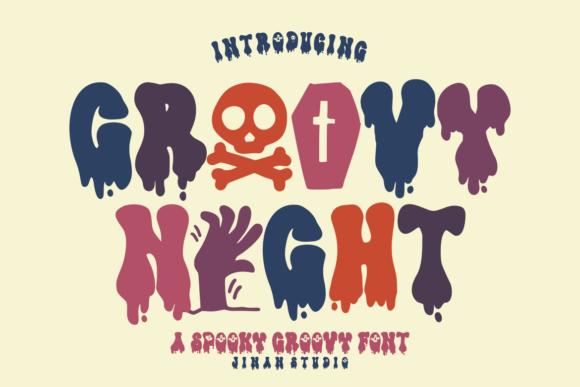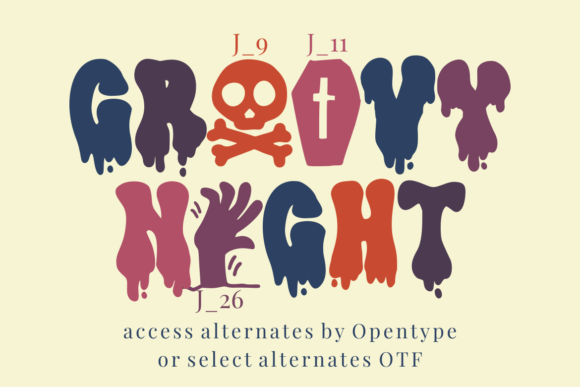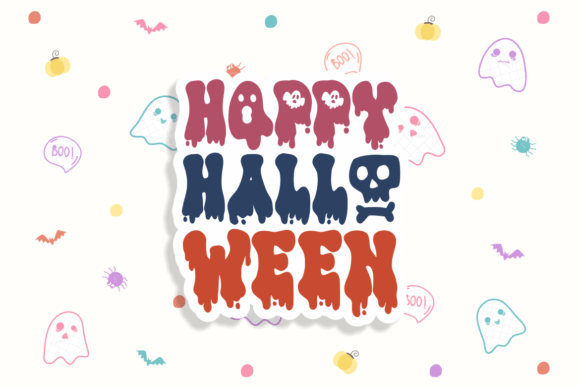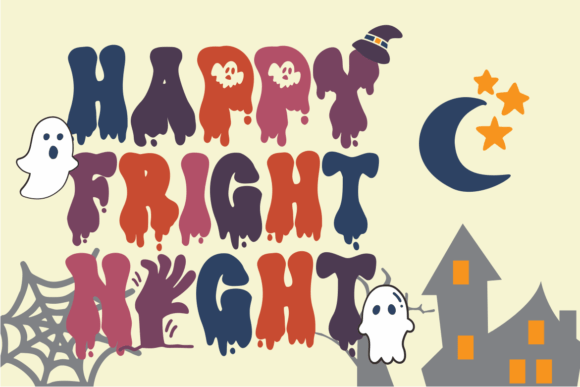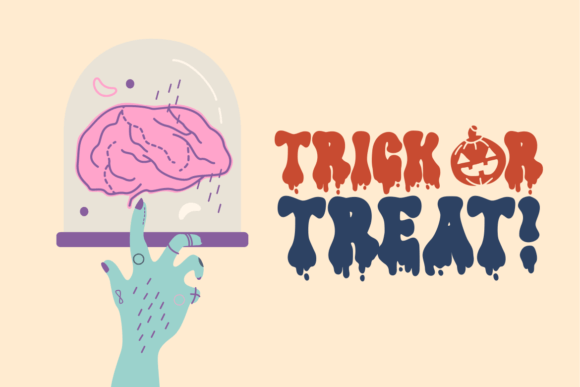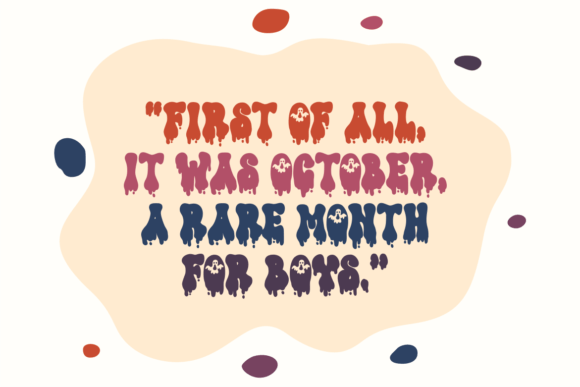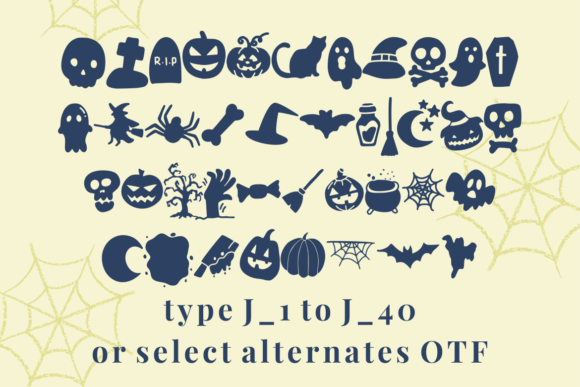
Get Ready to Cast a Spell with Groovy Night Font
As a designer, there’s nothing quite like the thrill of brainstorming a new project. The spark of inspiration, the rush of creativity – it’s a feeling that’s hard to beat. And for many of us, it starts with a single font that sets the tone for our entire design. For me, that font is often a whimsical, spooky, and fun display font that adds a touch of magic to any project.
Enter the Groovy Night Font, a delightful blend of cute and mysterious that’s perfect for all your horror-themed and Halloween projects. Whether you’re designing a haunted house flyer, a spooky website, or a Halloween-themed social media post, Groovy Night Font is the perfect partner in crime. And for designers, it’s a valuable addition to any font library – a versatile and engaging tool that’s sure to add some extra oomph to your designs.
Groovy Night Font Key Features
- Unique Characteristics: Distinctive, hand-drawn feel with a mix of geometric and organic elements
Groovy Night Font Review
I was excited to dive into the world of “Groovy Night Font” and see what it had to offer. Overall, I think this font has some great qualities, but also some limitations.
- ✨ Unique aesthetic: Groovy Night Font has a distinct, psychedelic vibe that’s perfect for creating eye-catching designs.
- ✨ Great for headlines: The font’s bold, statement-making qualities make it ideal for headings and titles.
- ✨ Versatile: Groovy Night Font can be used for a variety of projects, from music festivals to retro-themed websites.
- ⚠️ Limited legibility: At smaller font sizes, Groovy Night Font can become difficult to read, which may limit its use in body text.
- ⚠️ Overuse: The font’s distinctive style can become overwhelming if used too much in a single design.
- ⚠️ Not suitable for all projects: Groovy Night Font may not be the best choice for projects that require a more professional or formal tone.
Overall, I think Groovy Night Font is a great addition to any designer’s toolkit, but it’s essential to use it thoughtfully and in moderation. With its unique aesthetic and versatility, it’s perfect for creating bold, eye-catching designs – just be mindful of its limitations.
The Groovy Night Font is perfect for creating a retro or vintage-inspired design. Use it for:
- Music-related projects, such as album covers or posters.
- Advertising and marketing materials, such as flyers or brochures.
- Personal projects, such as photo albums or scrapbooks.
Remember to experiment with different font sizes, styles, and colors to achieve the desired effect.